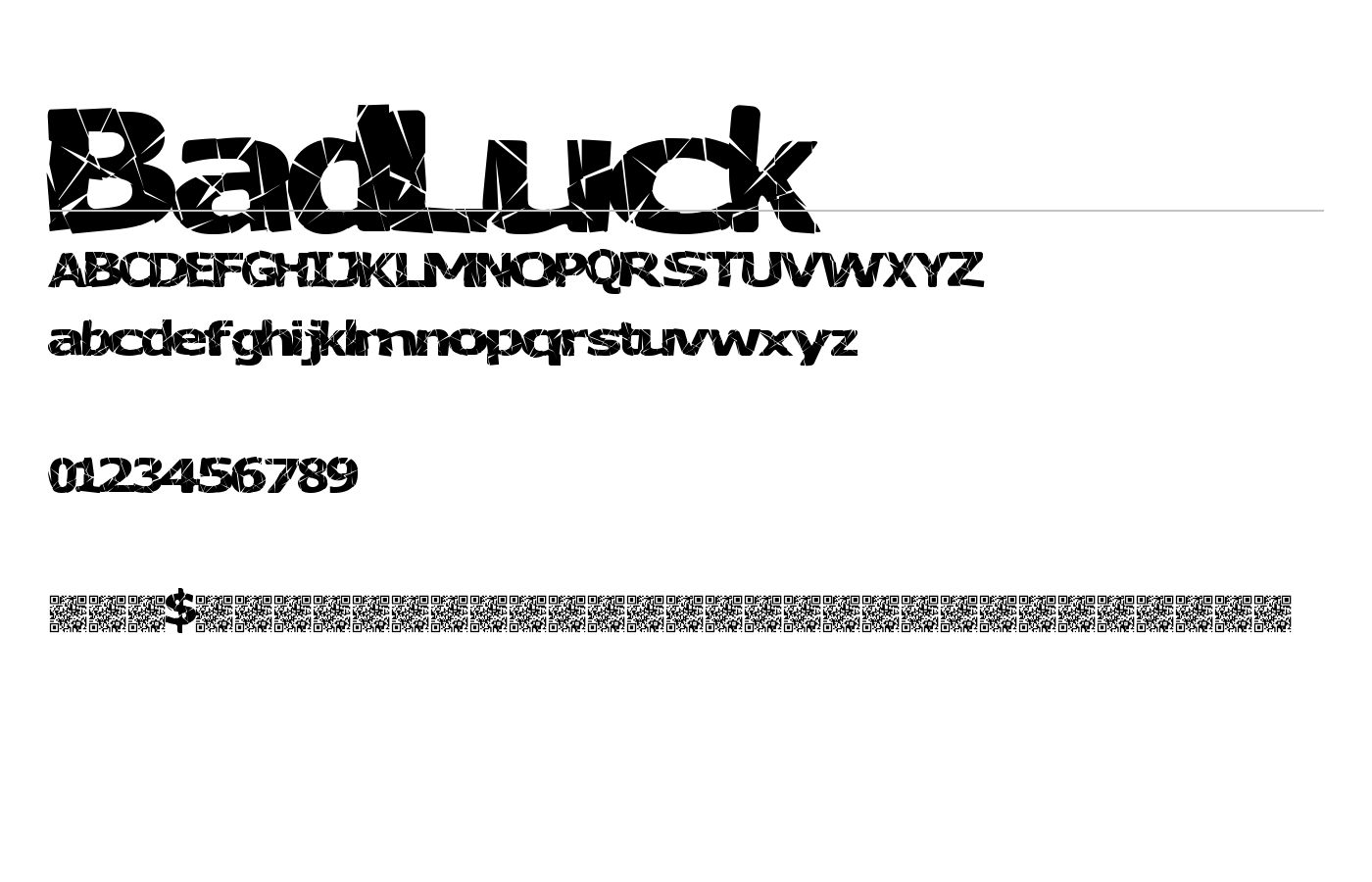
BadLuck is a bold, sans serif display font characterized by its shattered, fragmented style that gives letters a striking, edgy appearance. With a strong, condensed structure and high visual impact, this font conveys a raw, rebellious vibe, making it ideal for eye-catching headlines, posters, and designs that need a dramatic, unconventional look. Its unique texture and distressed feel work well for creative projects seeking a sense of chaos or urban grit.
BadLuck Font
About BadLuck Font